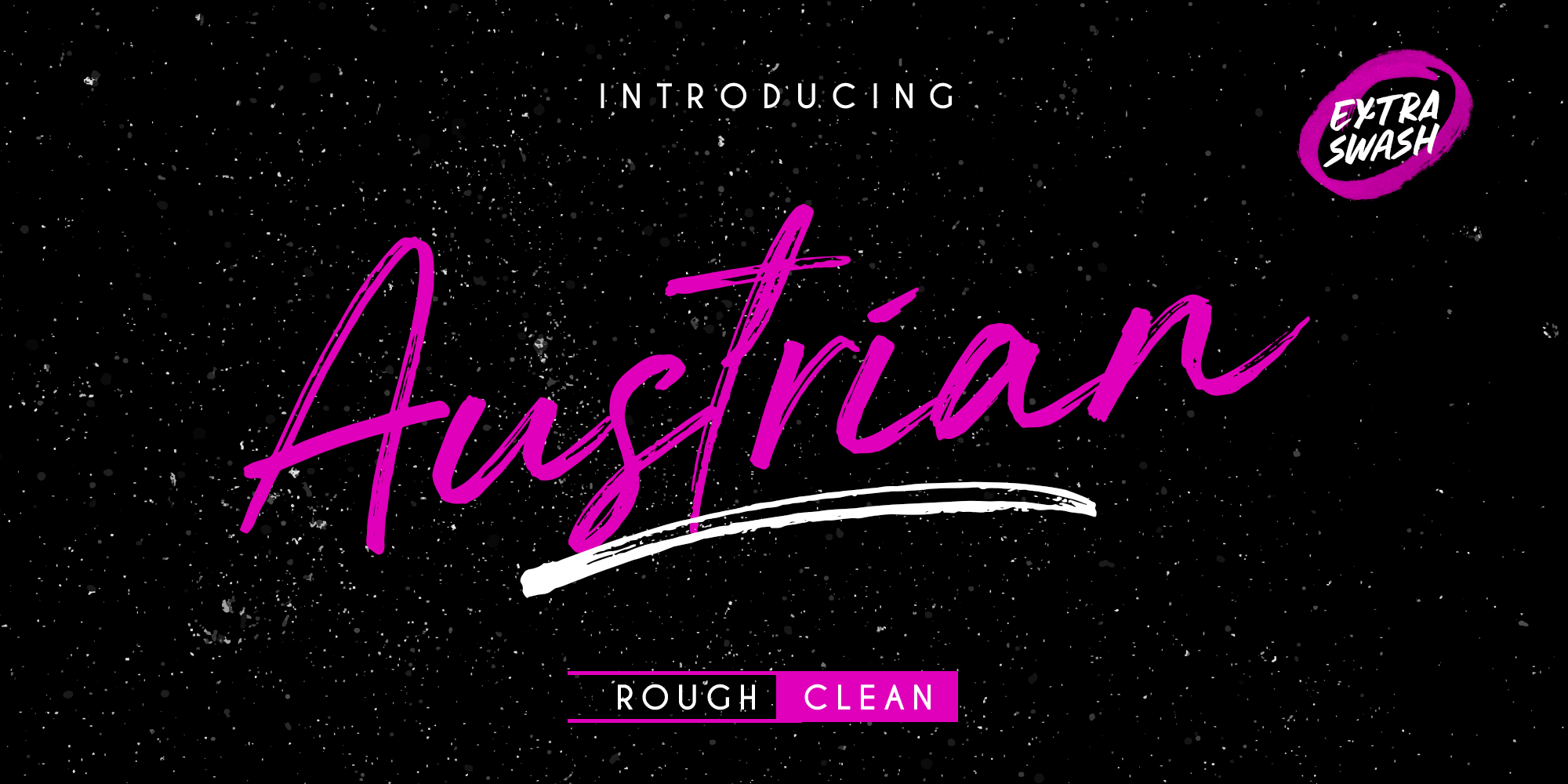
Austrian Font Free Download
Austrian Font is ideal for Alpine resort branding, European tourism materials, traditional Austrian restaurants, classical music festival programs, Vienna cultural exhibitions, heritage hotel communications, luxury ski lodge marketing, and Central European hospitality venues. This elegant typeface brings imperial sophistication and Alpine charm to any project requiring authentic European elegance with cultural heritage authenticity.
What makes Austrian Font exciting is its perfect capture of Habsburg Empire grandeur combined with contemporary Alpine sophistication that evokes the timeless elegance of Vienna's golden age. The font features refined letterforms with subtle decorative elements that mirror the architectural details of imperial palaces and traditional Austrian craftsmanship. Its cultural authenticity and dignified presence create an immediate sense of European heritage and luxury hospitality, making it perfect for brands seeking to convey traditional quality, cultural sophistication, and authentic Alpine experiences. The typeface's imperial charm ensures instant recognition of European elegance and cultural prestige.
The Austrian Font family includes Regular, Bold, Light, Italic, and Ornamental variants, each maintaining the signature Central European elegance while offering different visual weights for various cultural applications. The family features European diacritical marks, traditional ligatures, and decorative elements that enhance its authenticity for Austrian and Germanic heritage projects. These variants provide comprehensive tools for creating culturally authentic European typography.
Whether you're designing for hospitality brands, cultural institutions, or European heritage projects, Austrian Font Free Download delivers the imperial sophistication that defines authentic Central European typography. Its combination of Habsburg elegance and Alpine charm makes it perfect for communicating cultural heritage, luxury hospitality, and European tradition with genuine Austrian character and timeless imperial grandeur.